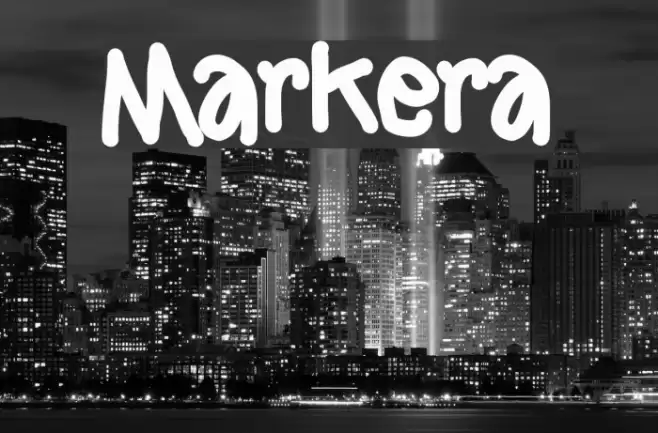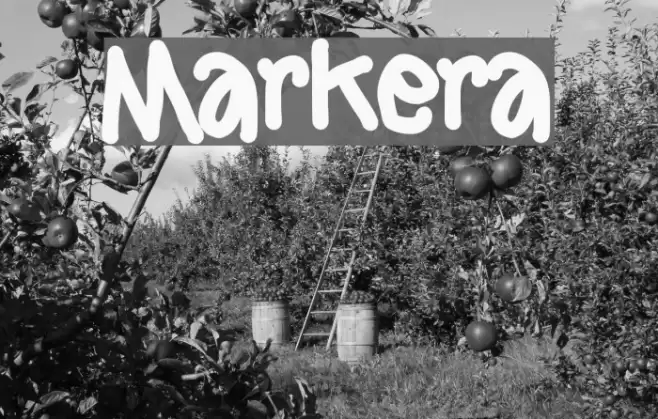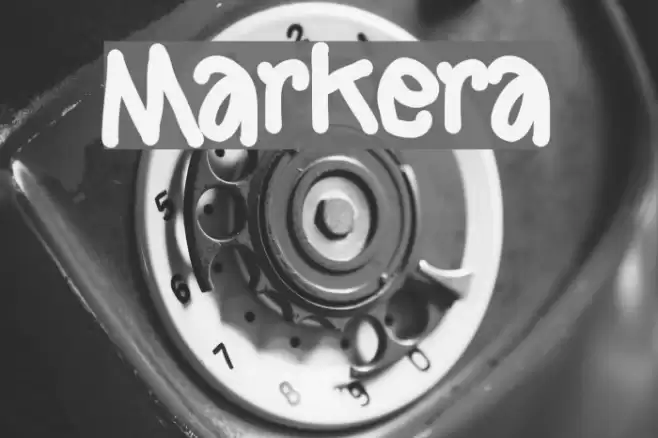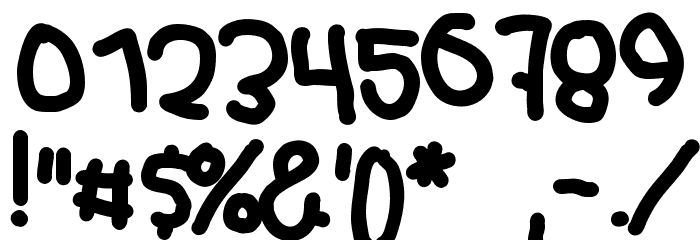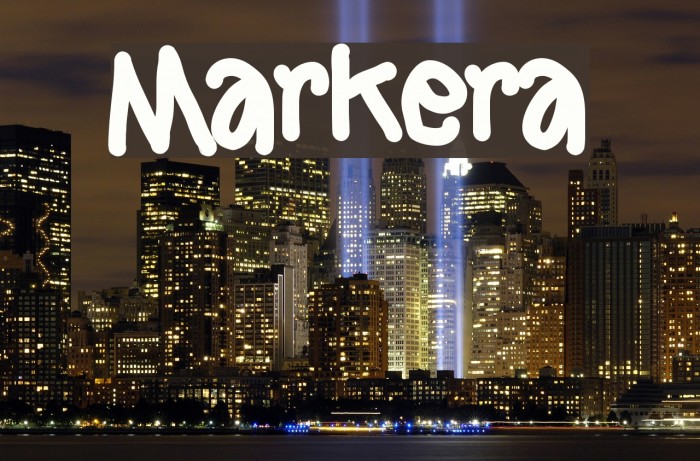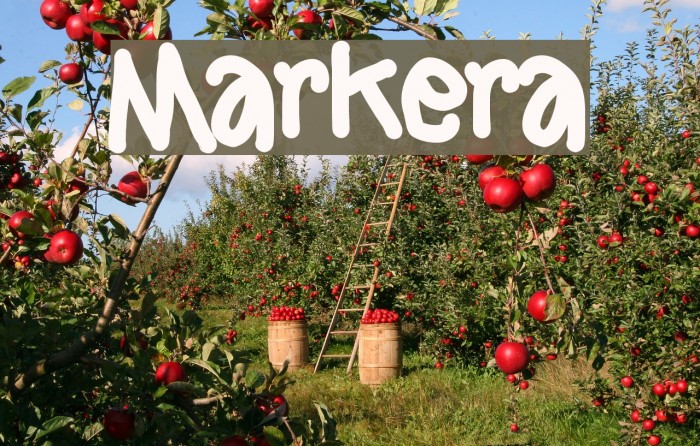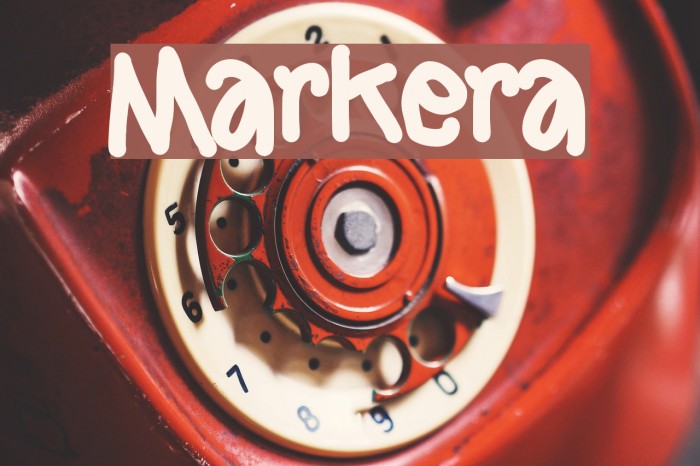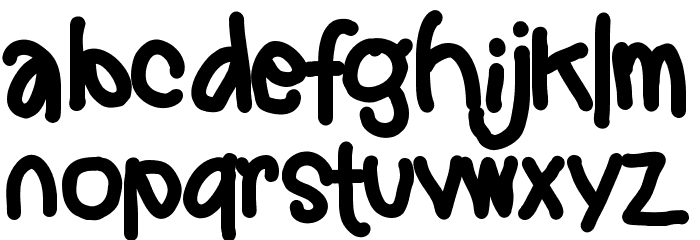
Markera Font
Markera Description
This font features a playful and bold handwritten style, characterized by its thick strokes and rounded edges. The letters are slightly irregular, giving it a casual and informal appearance. The uppercase and lowercase letters maintain a consistent style, with a noticeable difference in size that adds to its charm. The numbers and special characters are equally bold and maintain the same playful aesthetic. This font is ideal for projects that require a personal touch, such as greeting cards, posters, or children's book covers. Its boldness ensures readability while the playful design adds a unique flair.
A bold, playful handwritten font with thick strokes and rounded edges from Uncategorized fonts.
- Proposed Projects: Ideal for greeting cards, posters, children's book covers, and playful branding.
- Overall Style: Playful